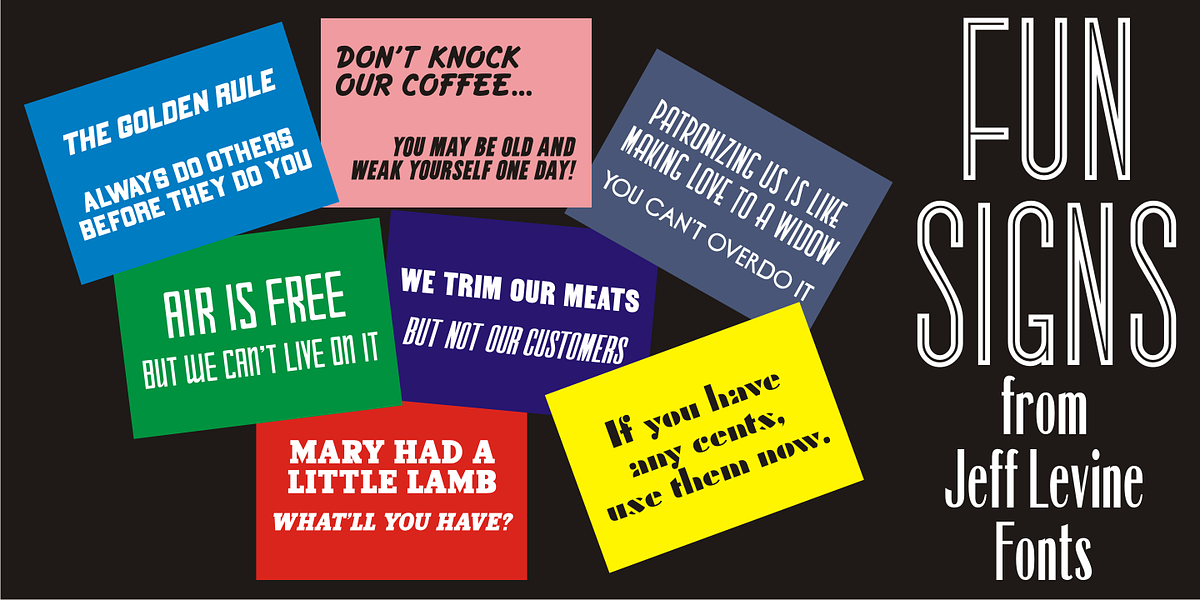
Fun Signs JNL
Fun Signs JNL comprises twenty-six humorous signs from a 1930s-era sales list of products manufactured by the Koehler Sign Company of St. Louis, Missouri.
Koehler manufactured a large line of stock cardboard "Blue Signs" (presumably blue backgrounds with white lettering) and alongside the many standard phrases used by various businesses was a list of funny sayings.
Such placards were bought by merchants to either evoke interest in their services (such as in a bar or restaurant, or jokingly comment on their business policies (as in credit billing).
These novelty signs are a fun addition to a flier, ad, web page or announcement and will leave your readers smiling.